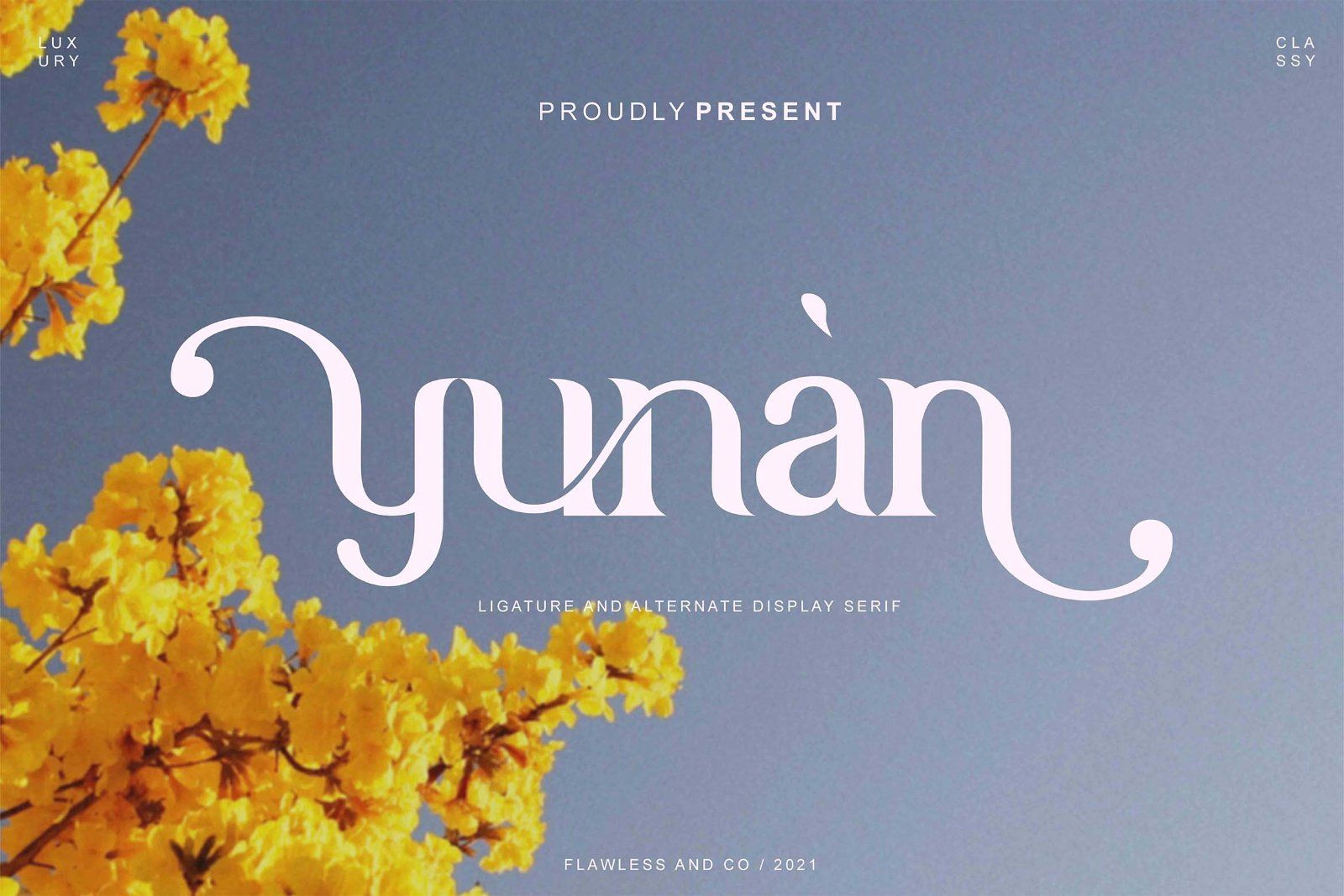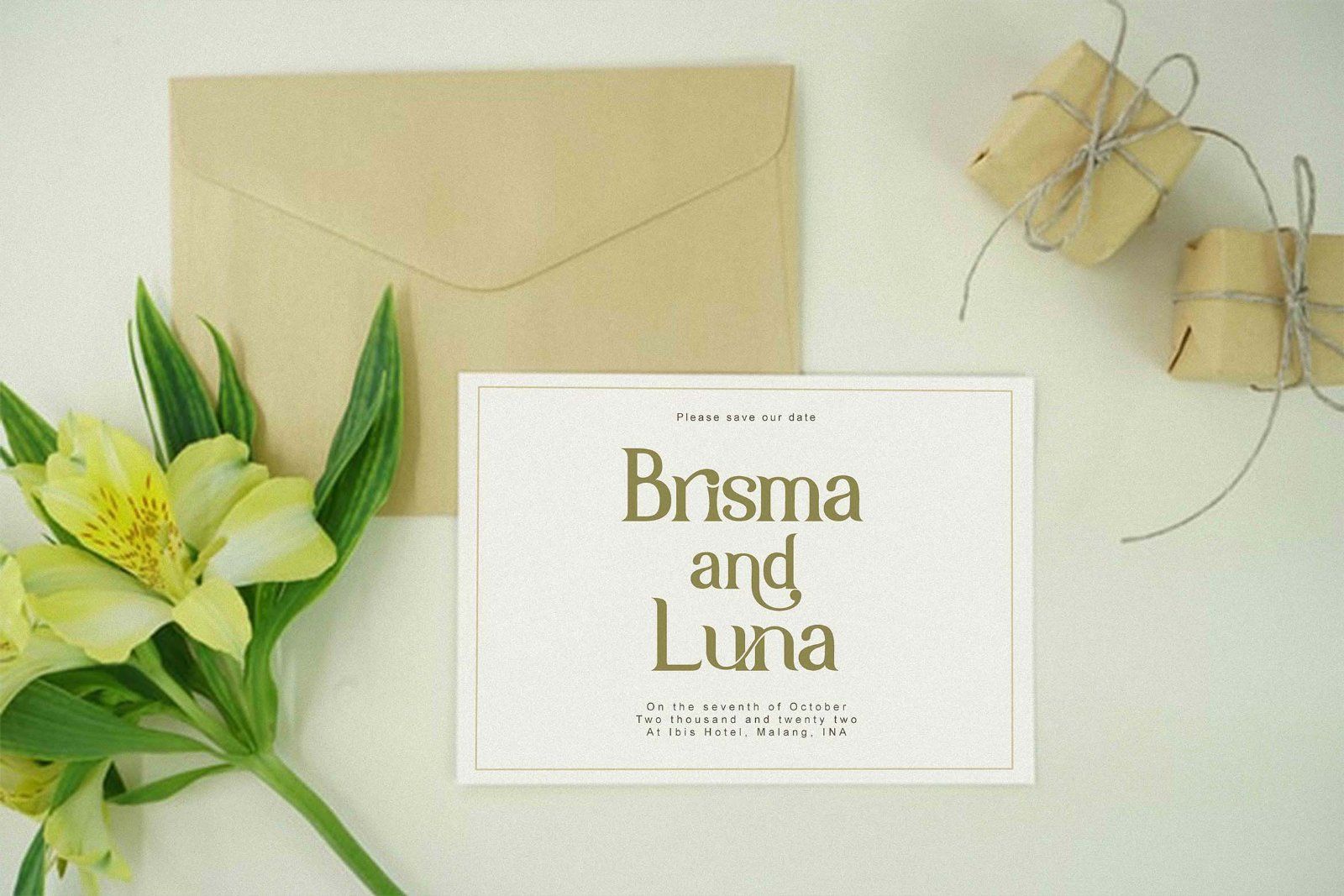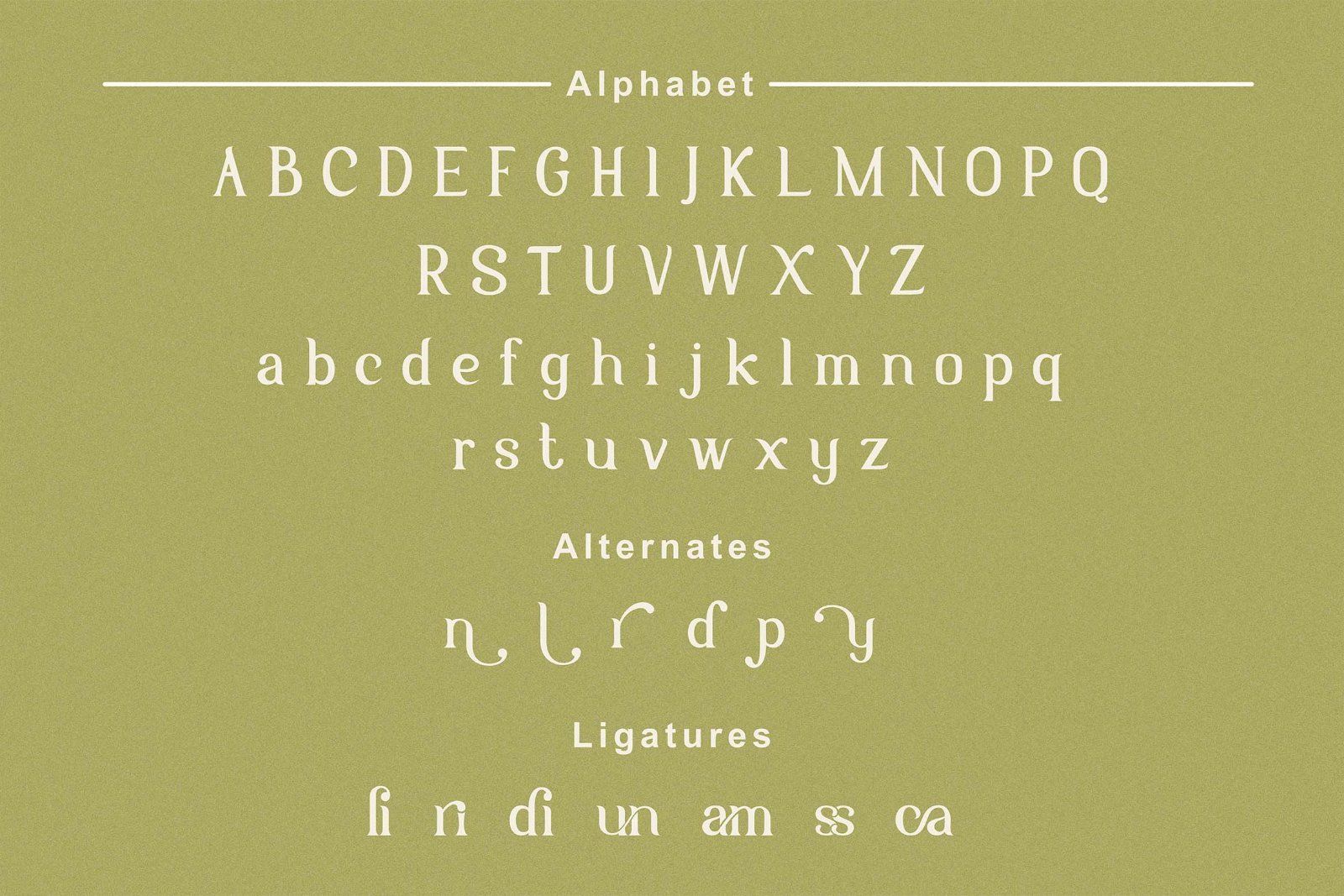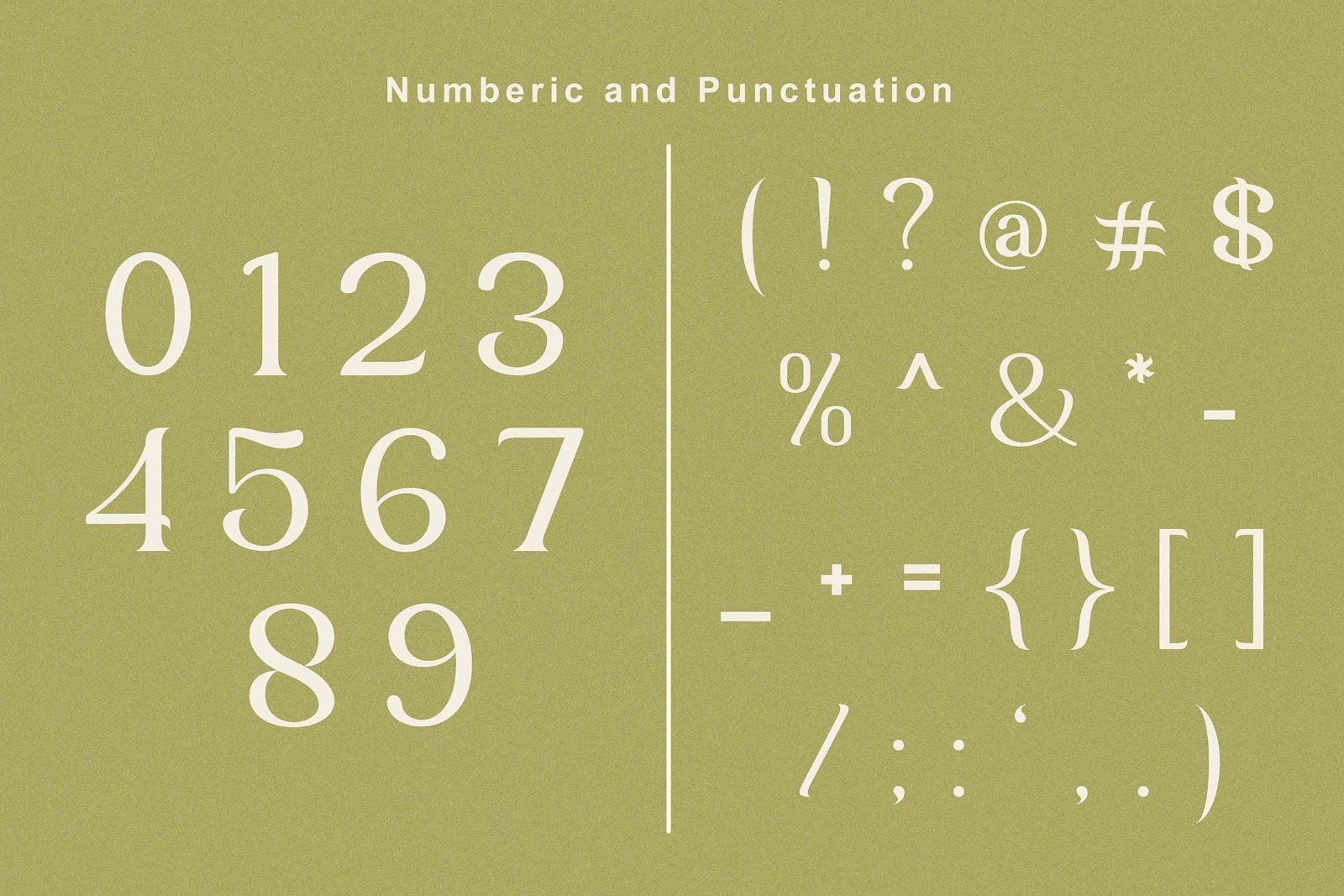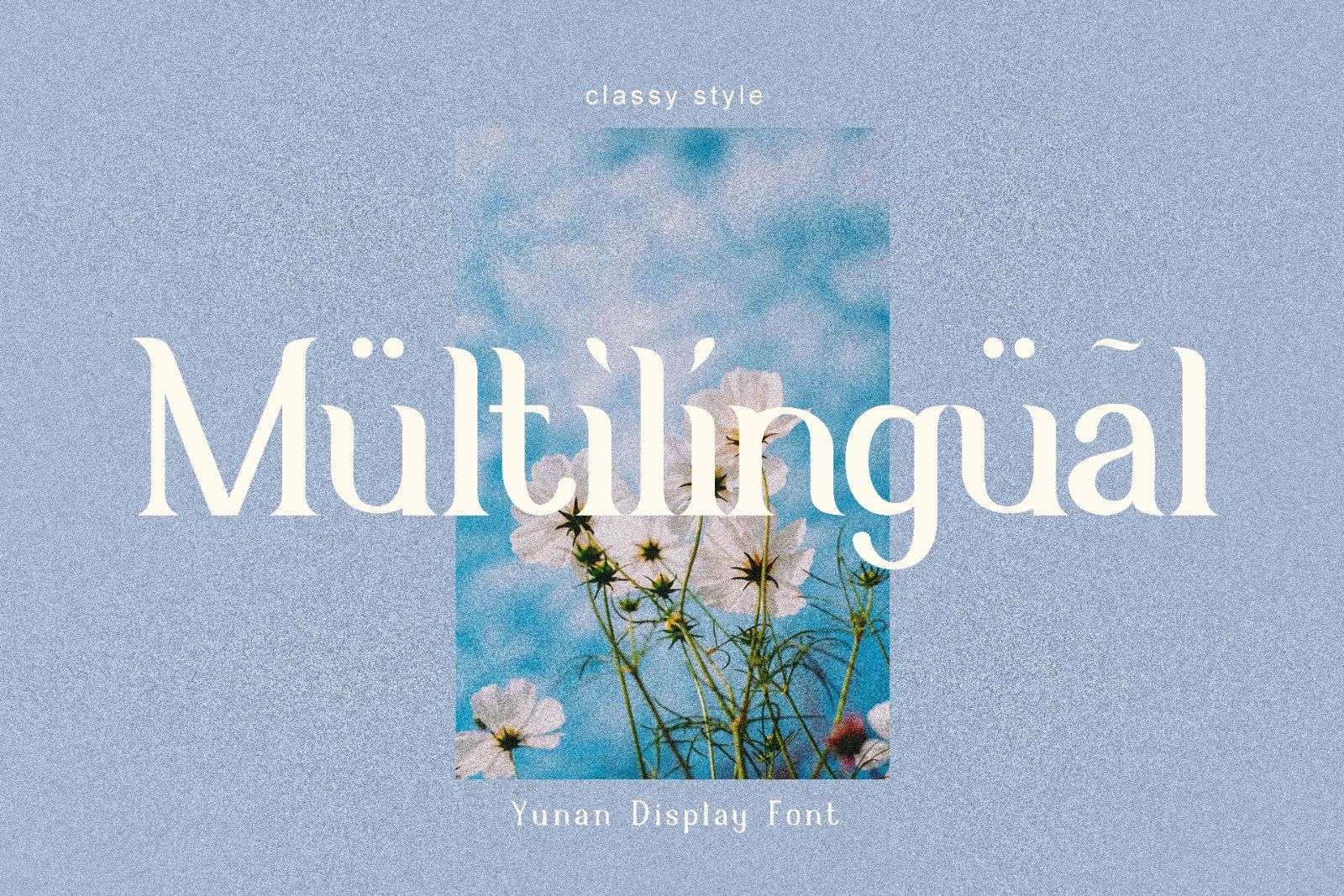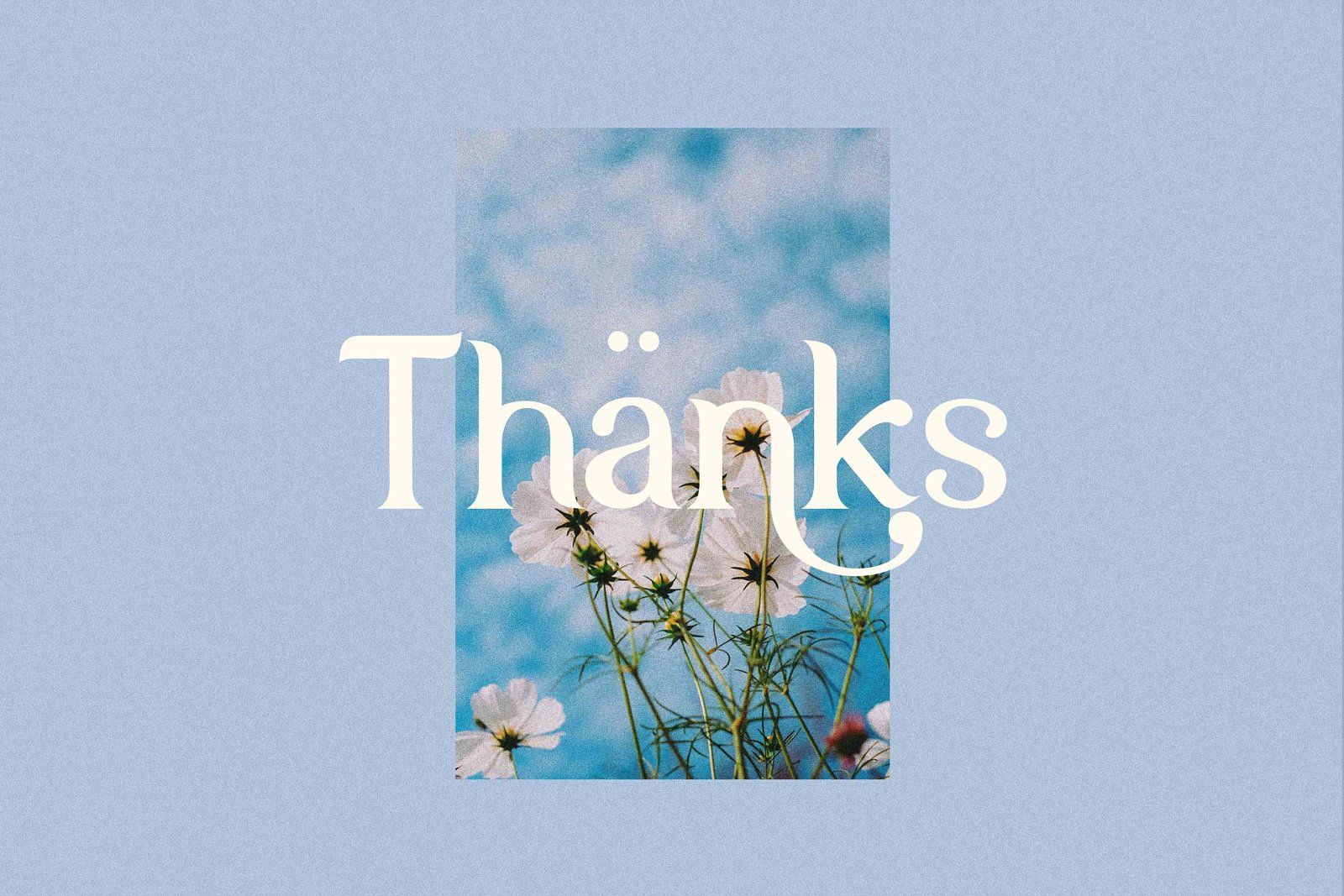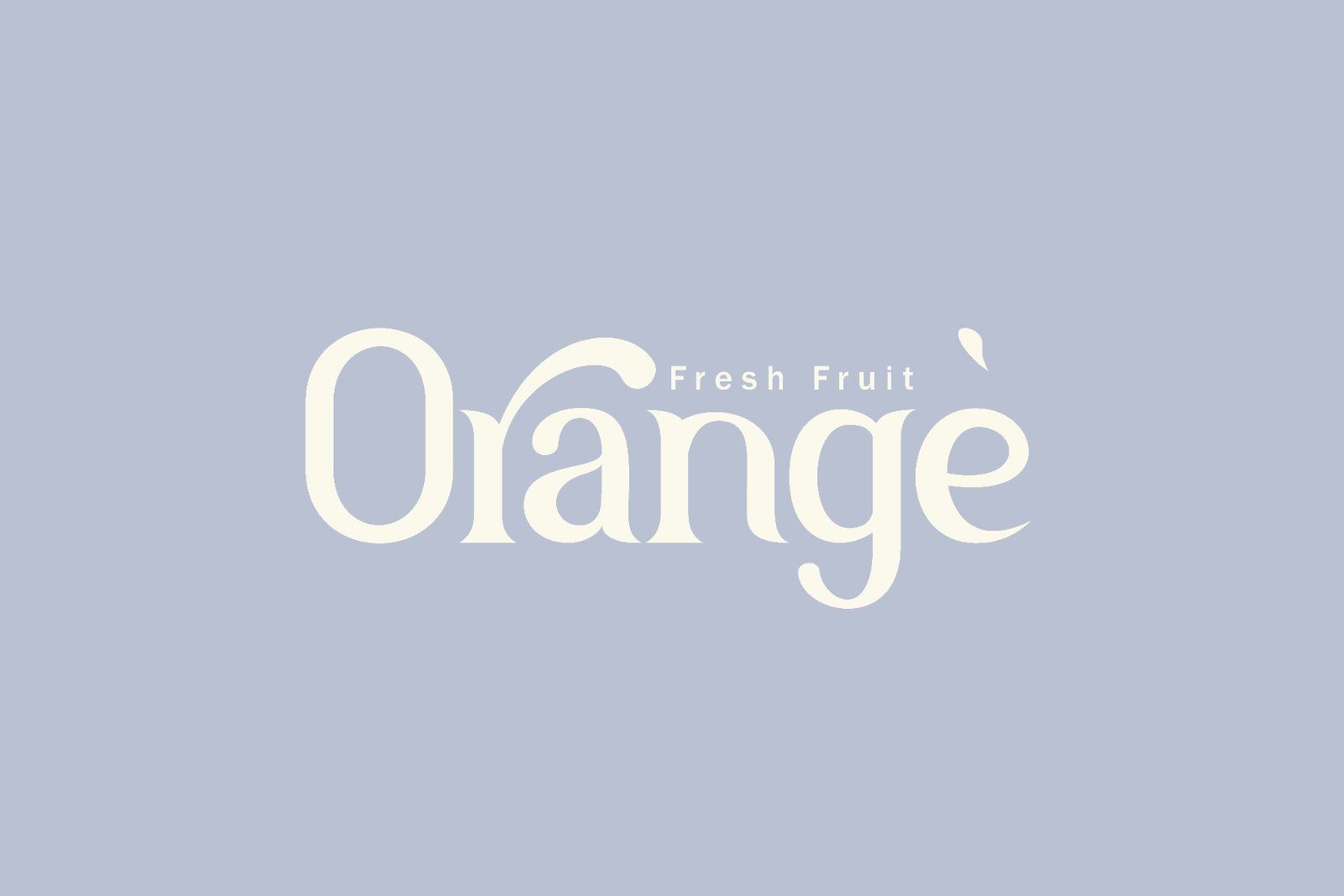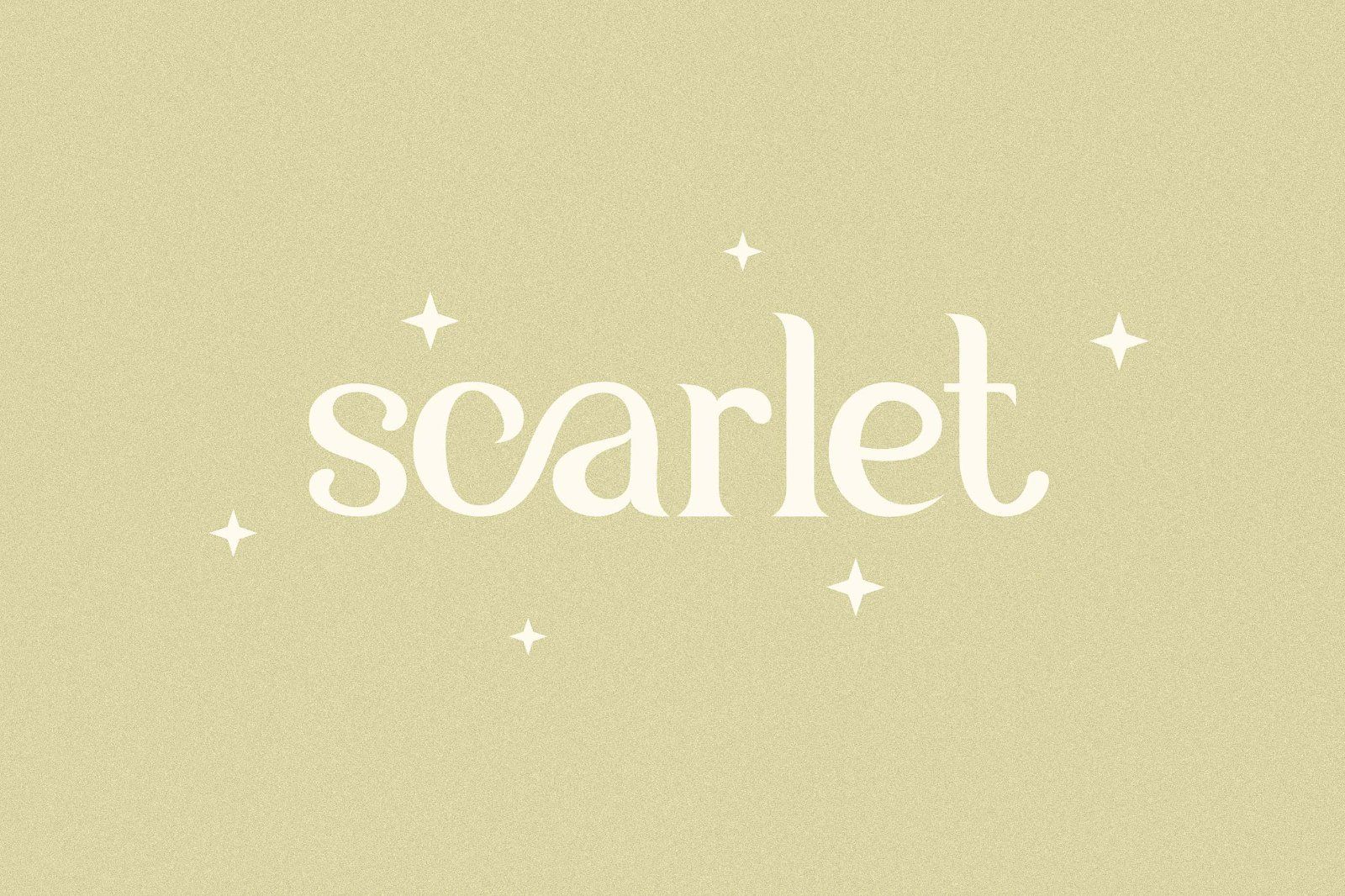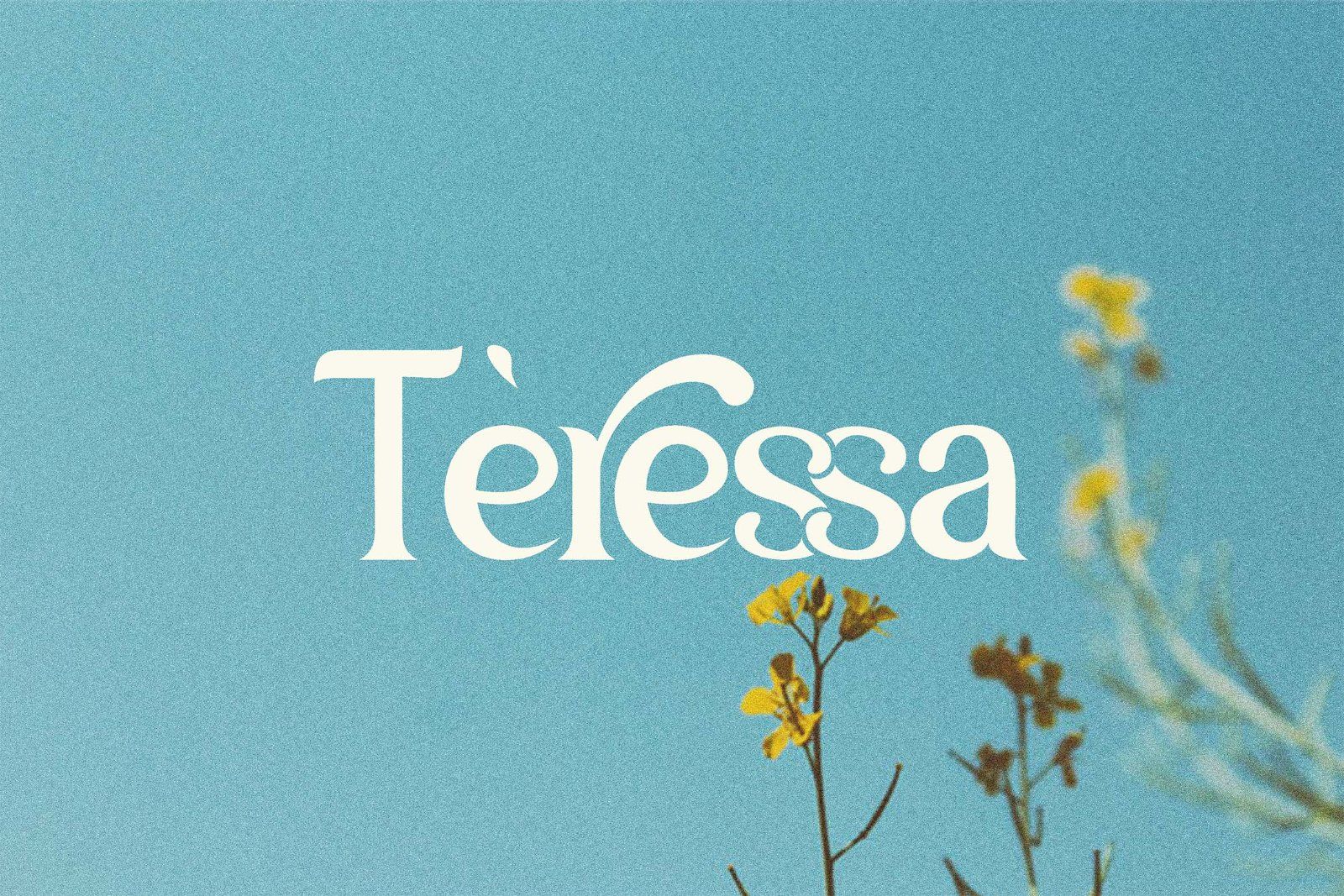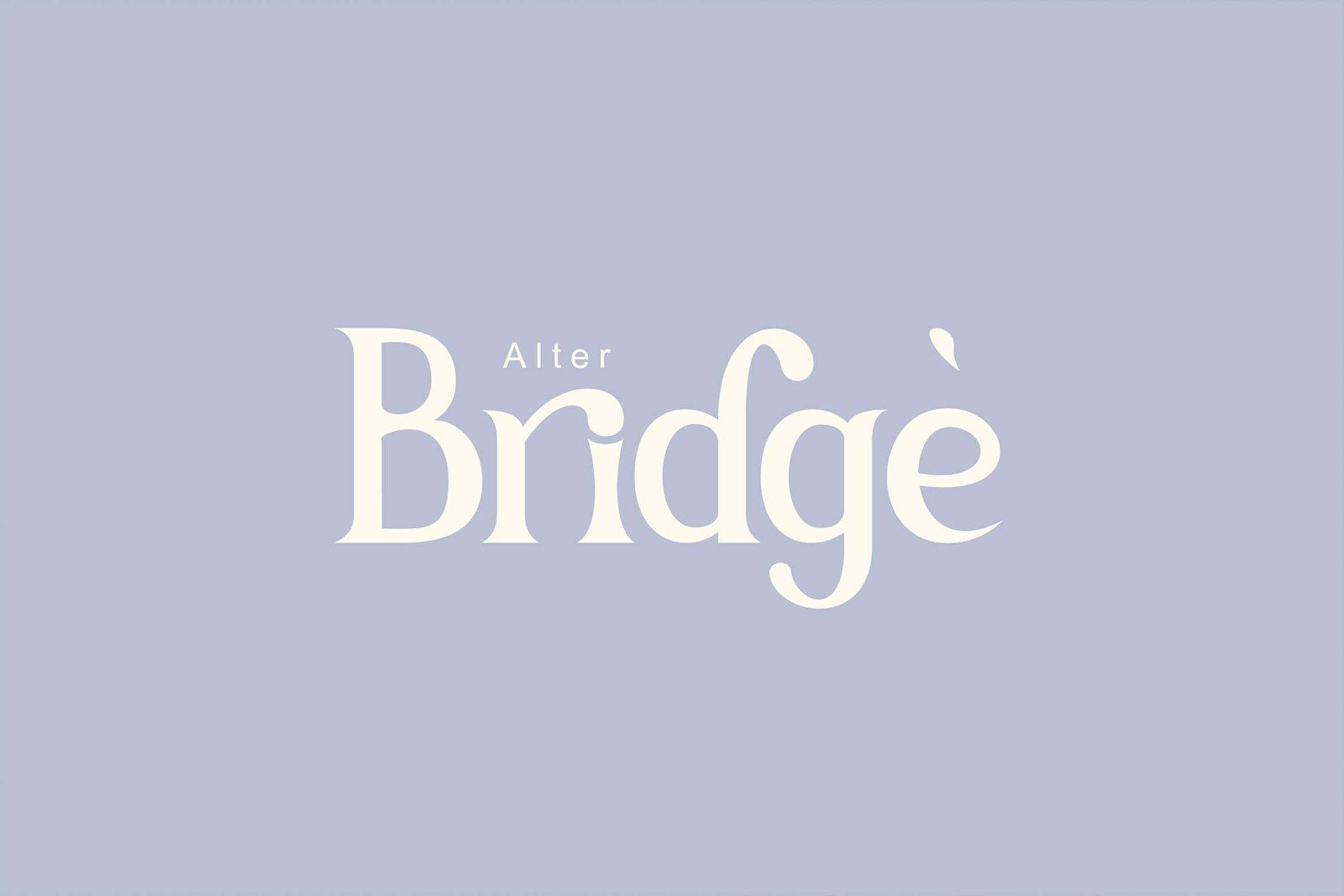
YUNAN is an elegant display serif font that blends refined sophistication with a modern and distinctive character. Featuring high-contrast strokes, graceful curves, and beautifully extended swashes, YUNAN creates a beautiful and stylish look that instantly elevates any design.
• Uppercase alphabet A-Z
• Lowercase alphabet a-z
• Alternate Character
• Numbers 0-9
• Some punctuation